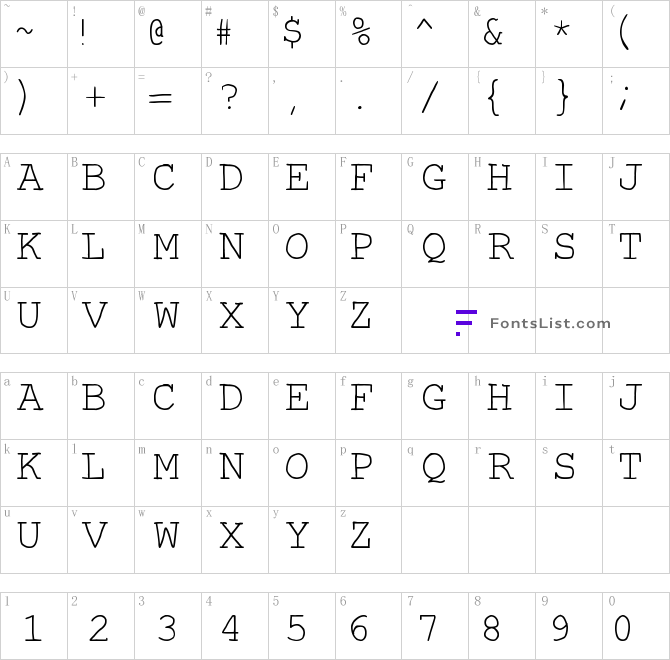
- Font Name:Autumn
Autumn.ttf is a very beautiful artistic font, Autumn.ttf is widely used in the design and printing of various books and pictures,Autumn.ttf has a strong visual impact,Autumn.ttf is a commonly used font in newspapers, magazines and books, and is used in posters, e-commerce Poster design, store design, logo design, font design and other fields.Autumn.